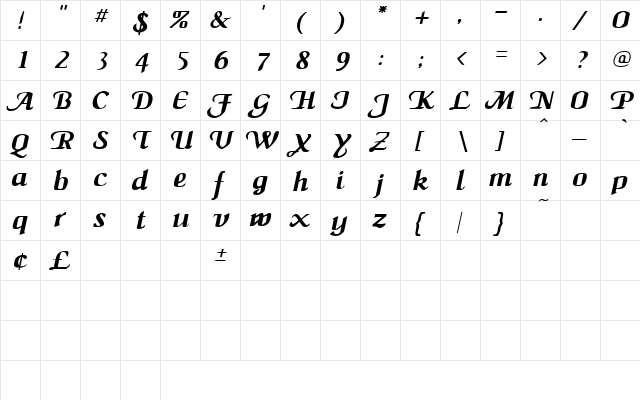
MaidenWord Italic Font Preview
MaidenWord Italic
Design Context for MaidenWord Typeface
MaidenWord takes a measured approach to typography — its balanced proportions and neutral character make it a reliable workhorse for both digital and print work. The slanted form adds forward momentum and visual energy.
Pro Tip: Use MaidenWord for emphasis, pull quotes, and subheadings where its slanted energy can add rhythm to the layout.